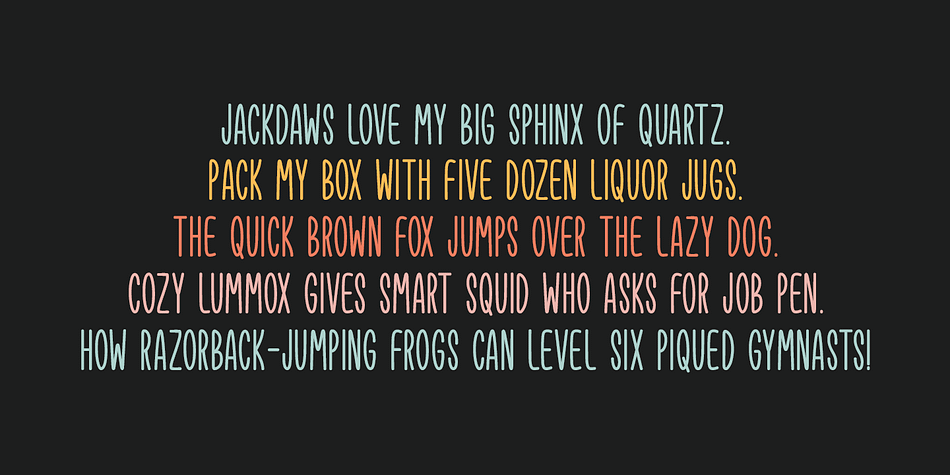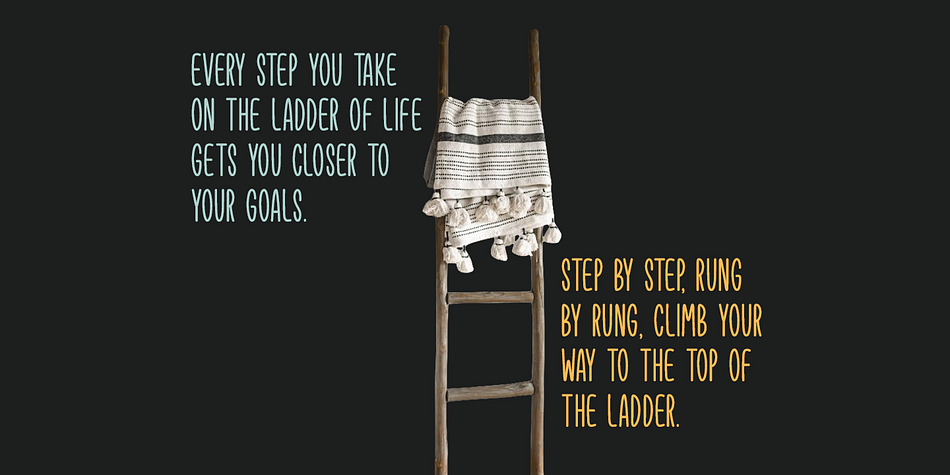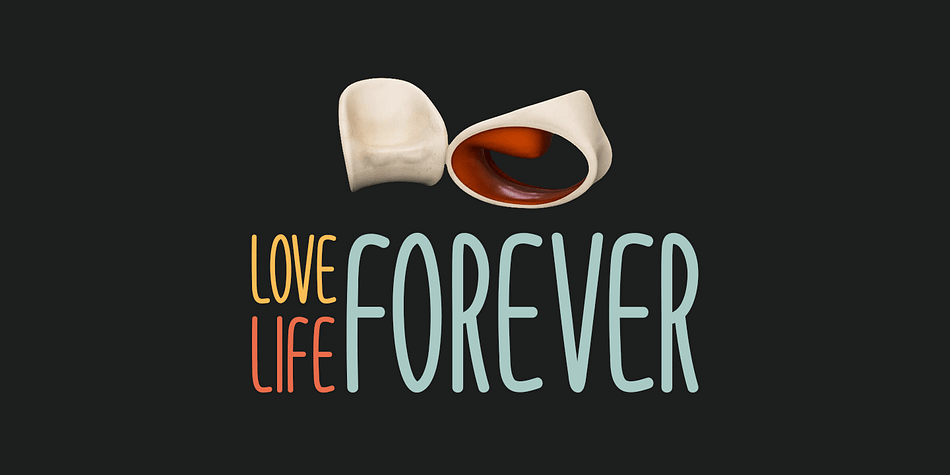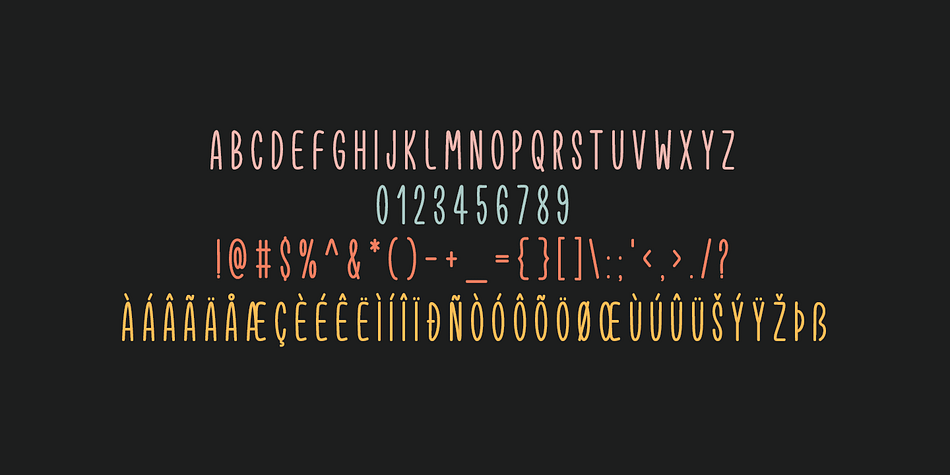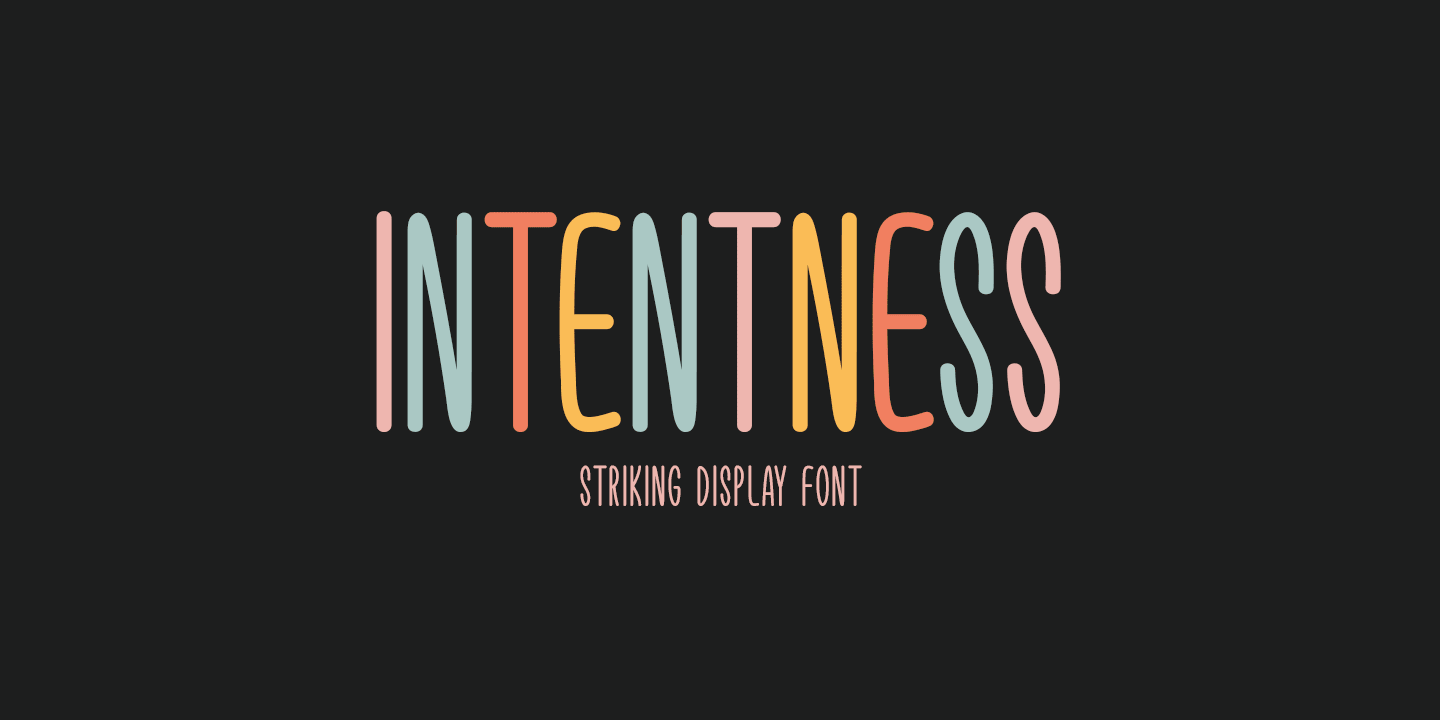
INTENTNESS
Designed by Md. Shohail Bhuiyan, Intentness is a display sans and hand display font family published by Seemly Fonts.
Intentness is an incomparable display font. It can easily be matched to an incredibly large set of projects, so add it to your creative ideas and notice how it makes them stand out!